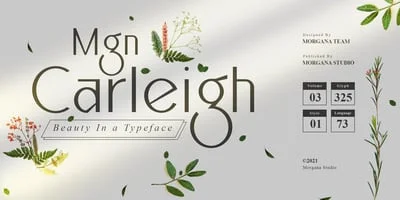
MGN Carleigh Font
What makes MGN Carleigh Font so exciting is its extraordinary ability to embody the perfect synthesis of contemporary femininity and sophisticated professionalism through elegantly crafted letterforms that seem designed by accomplished women who understand that true elegance lies in the confident expression of authentic style rather than following fleeting trends. This font captures the essence of modern feminine leadership and sophisticated taste, featuring gracefully proportioned characters that appear to flow with the natural confidence of women who have mastered the art of combining professional competence with genuine feminine grace. The refined letter shapes create an atmosphere of accomplished sophistication and personal distinction, making every word feel like it carries the signature of someone who has achieved success while maintaining the elegant femininity that defines authentic contemporary style.
The MGN Carleigh Font family includes Thin, Light, Regular, Medium, Bold, and Display weights, along with elegant italic variations and sophisticated decorative elements. Each style maintains the font's distinctive feminine character while offering complete versatility for different professional applications, from delicate personal correspondence to commanding business headlines that celebrate the achievements of accomplished contemporary women.
This sophisticated typeface brings authentic modern feminine aesthetics to contemporary design projects. The MGN Carleigh Font offers designers an invaluable resource for creating memorable brand identities that communicate elegance, professional competence, and contemporary feminine sophistication. Whether you're developing women's lifestyle brands, designing professional feminine materials, or creating sophisticated personal communications, this font delivers unmatched grace and contemporary appeal.
The expertly crafted letterforms in MGN Carleigh Font feature optimal proportions and contemporary refinement that ensure perfect performance across all applications while expressing the confident professionalism and sophisticated taste that define successful contemporary women. Each character has been designed to maintain maximum clarity while conveying the elegant authority and personal distinction that separate accomplished women from those who simply follow conventions. The font's distinctive personality makes it ideal for applications requiring genuine feminine authority and contemporary professional credibility.
Professional women and lifestyle brand leaders appreciate how MGN Carleigh Font effortlessly communicates sophistication, contemporary femininity, and professional excellence while appealing to discerning women who recognize and value the subtle differences that distinguish truly elegant personal branding from generic feminine design. The comprehensive glyph set includes feminine symbols, contemporary ornaments, professional elements, and extensive international language support, ensuring global compatibility while preserving its distinctive Carleigh identity. This makes it an invaluable resource for women's brands, feminine businesses, professional services, and any organization seeking typography that embodies the timeless principles of feminine elegance, contemporary sophistication, and the kind of confident professionalism that celebrates the unique combination of strength and grace that defines the most successful contemporary women who understand that true empowerment comes from embracing authentic feminine style while building careers and businesses that reflect both professional competence and the sophisticated taste that makes every achievement feel like a personal expression of individual excellence.